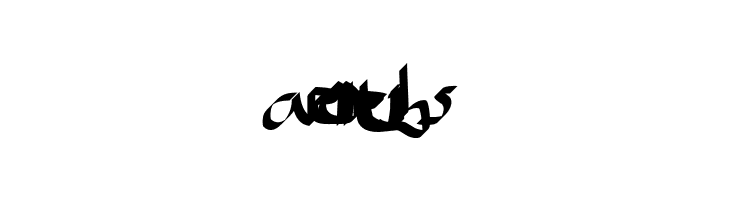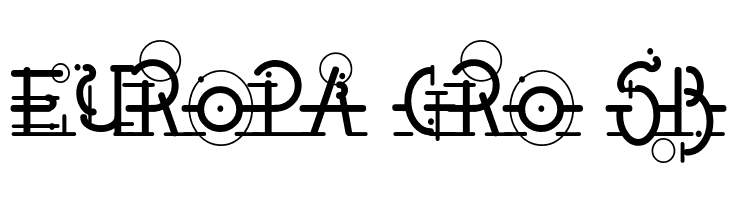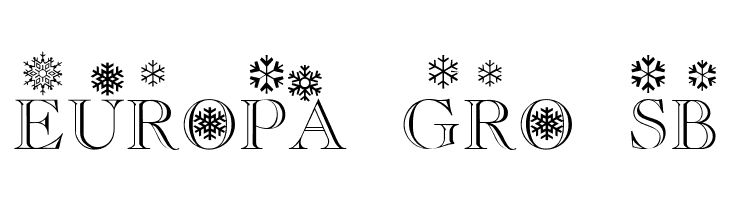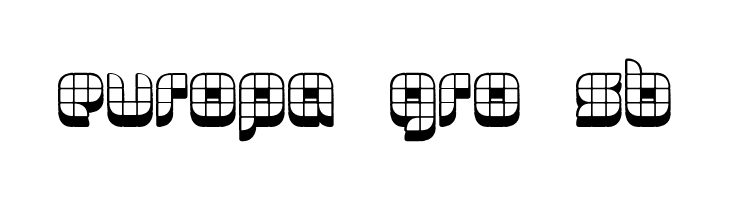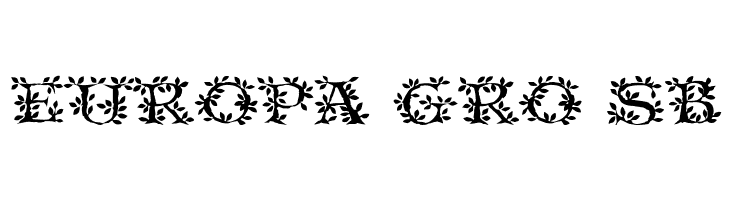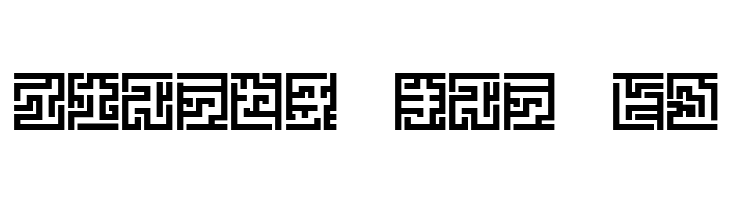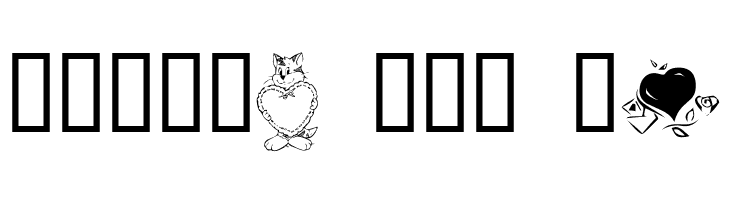
A decorative, maze-like font with a futuristic and abstract style.
A decorative, Celtic-inspired font with intricate details and embellishments.
An intricate, entangled font with geometric, maze-like patterns.
A decorative, Gothic-inspired font with intricate, angular designs.
A chaotic, vine-like decorative font with an edgy, artistic flair.
An intricate outline font with a decorative and artistic style.
A bold, 3D font with a shadow effect, perfect for dynamic and eye-catching designs.
An ornate, decorative font with intricate swirls and flourishes.
A chaotic, overlapping font with heavily obscured characters.